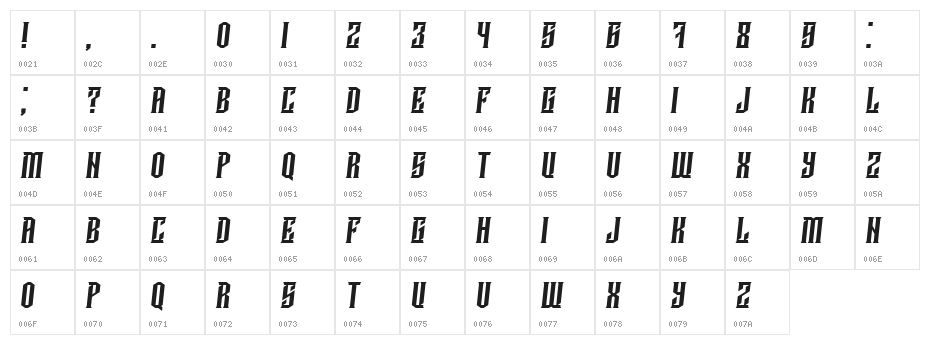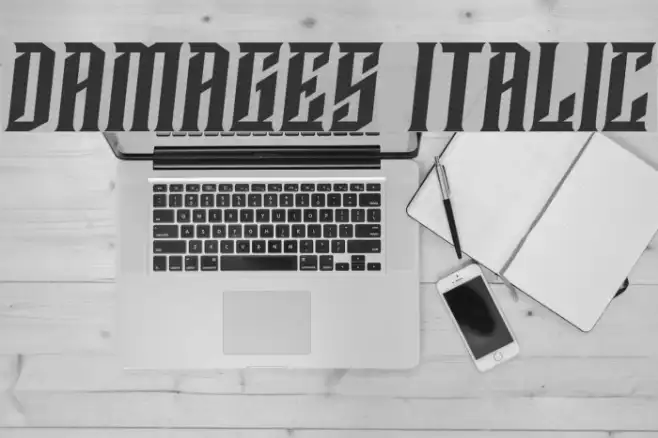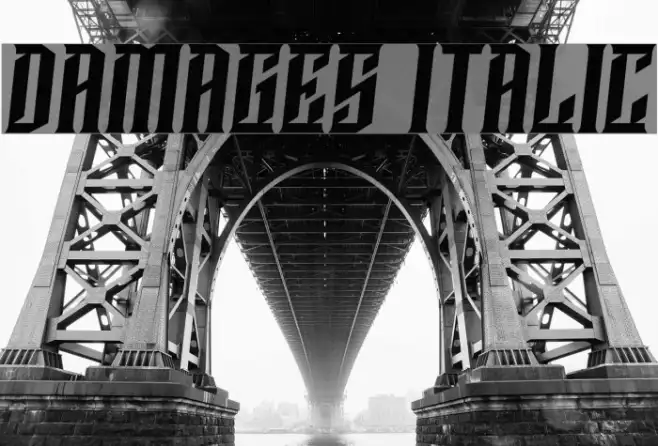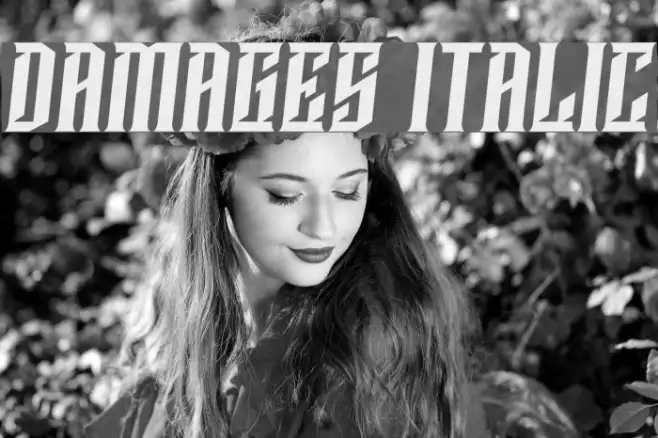
Damages Italic Font
Damages Italic Description
This font features a bold, italicized style with sharp, angular edges and a strong presence. The letters are tightly spaced, creating a compact and cohesive look. The uppercase and lowercase characters maintain a consistent design, with a distinctive slant that adds dynamism and movement. The numbers and special characters follow the same angular and bold aesthetic, ensuring uniformity across all elements. This font's striking appearance makes it ideal for projects that require a bold statement.
| Proposed Projects | Perfect for branding, poster design, album covers, and any project needing a bold, dynamic look. |